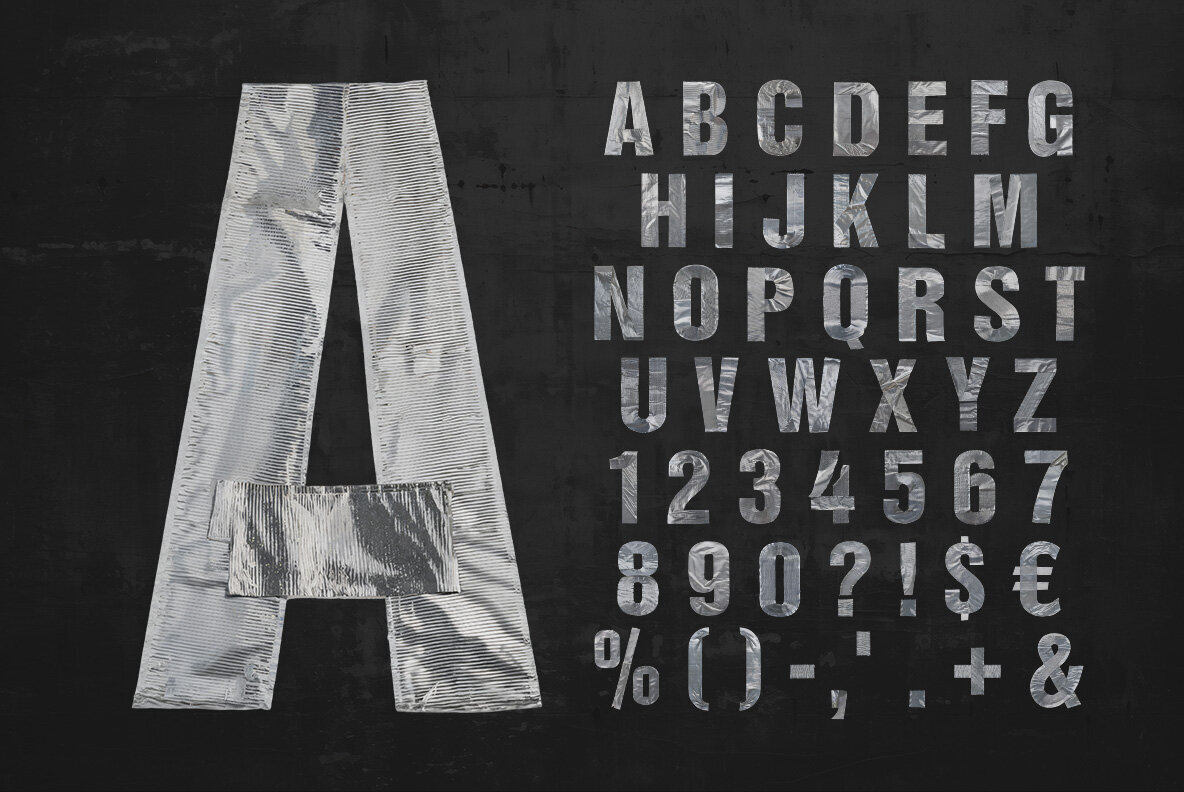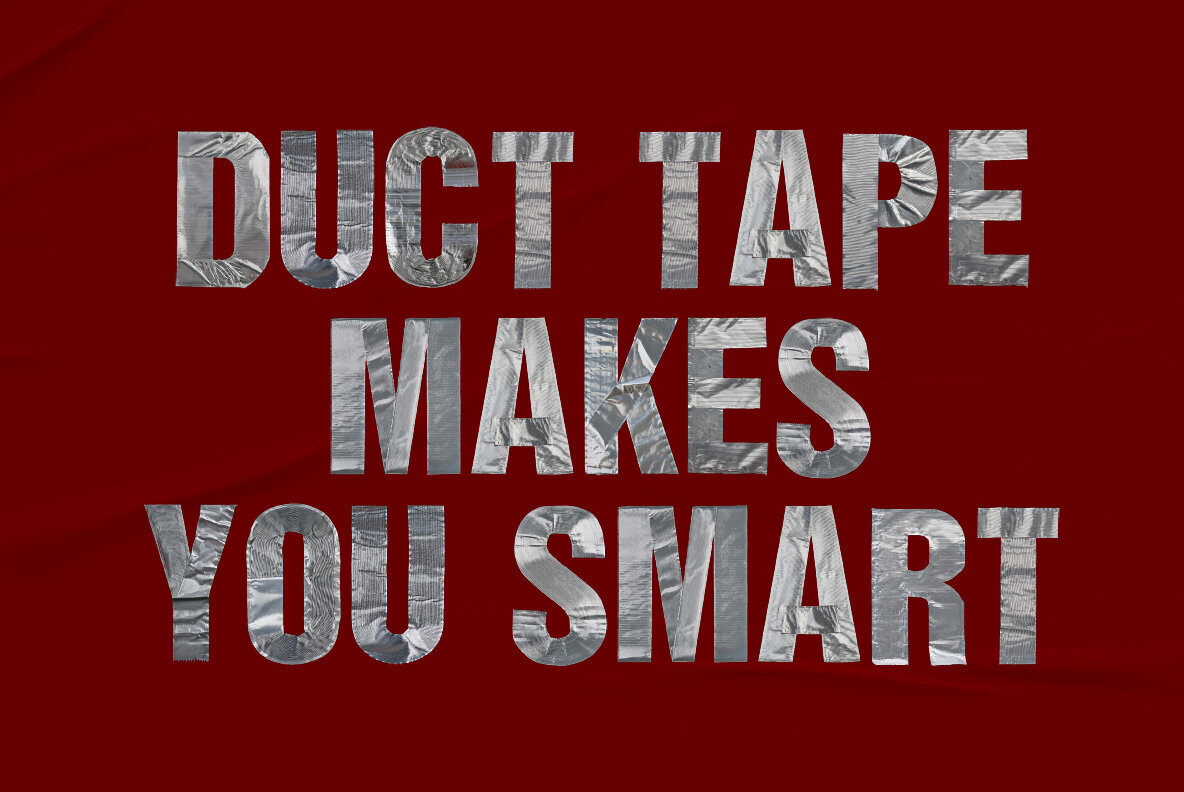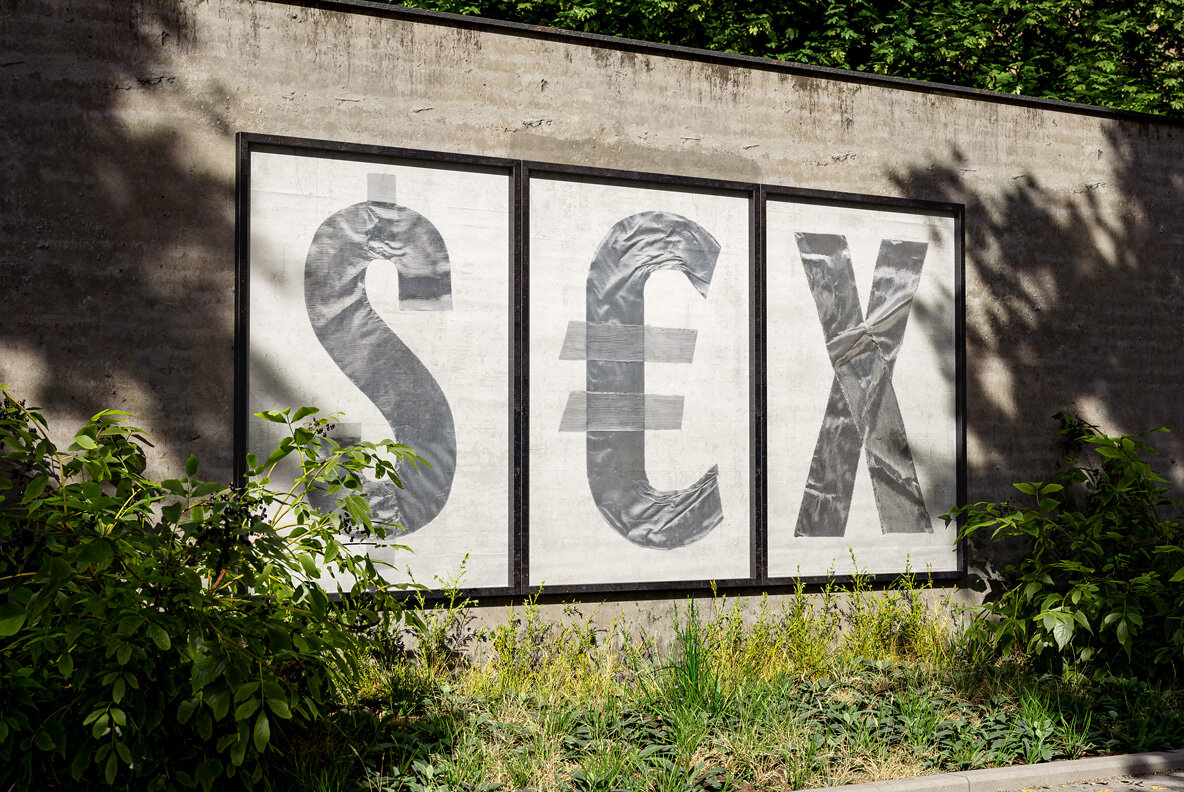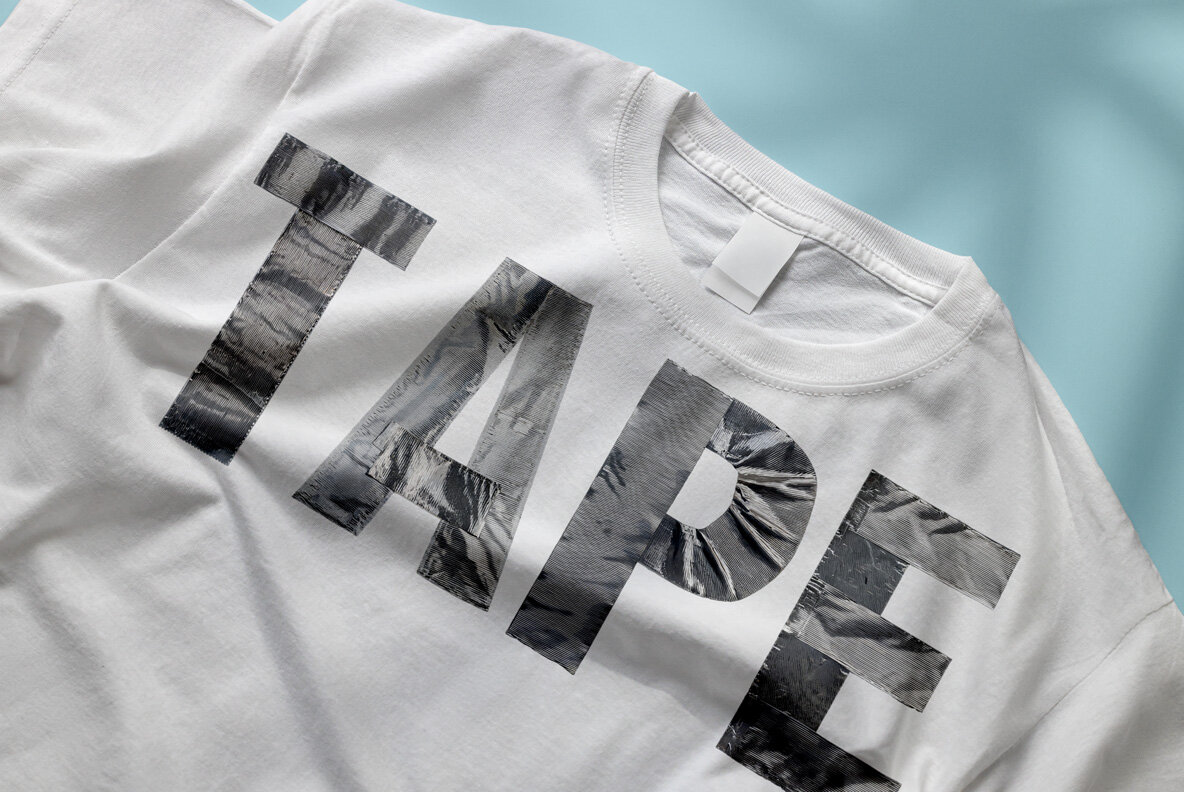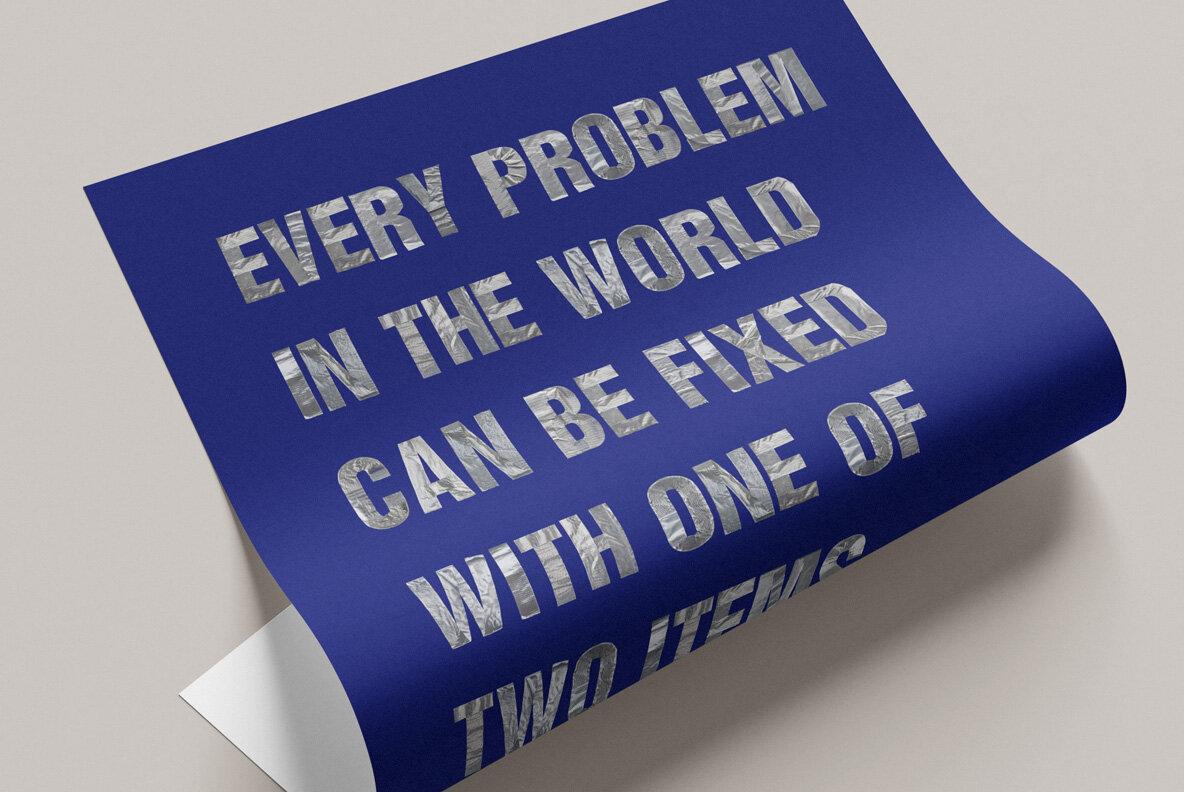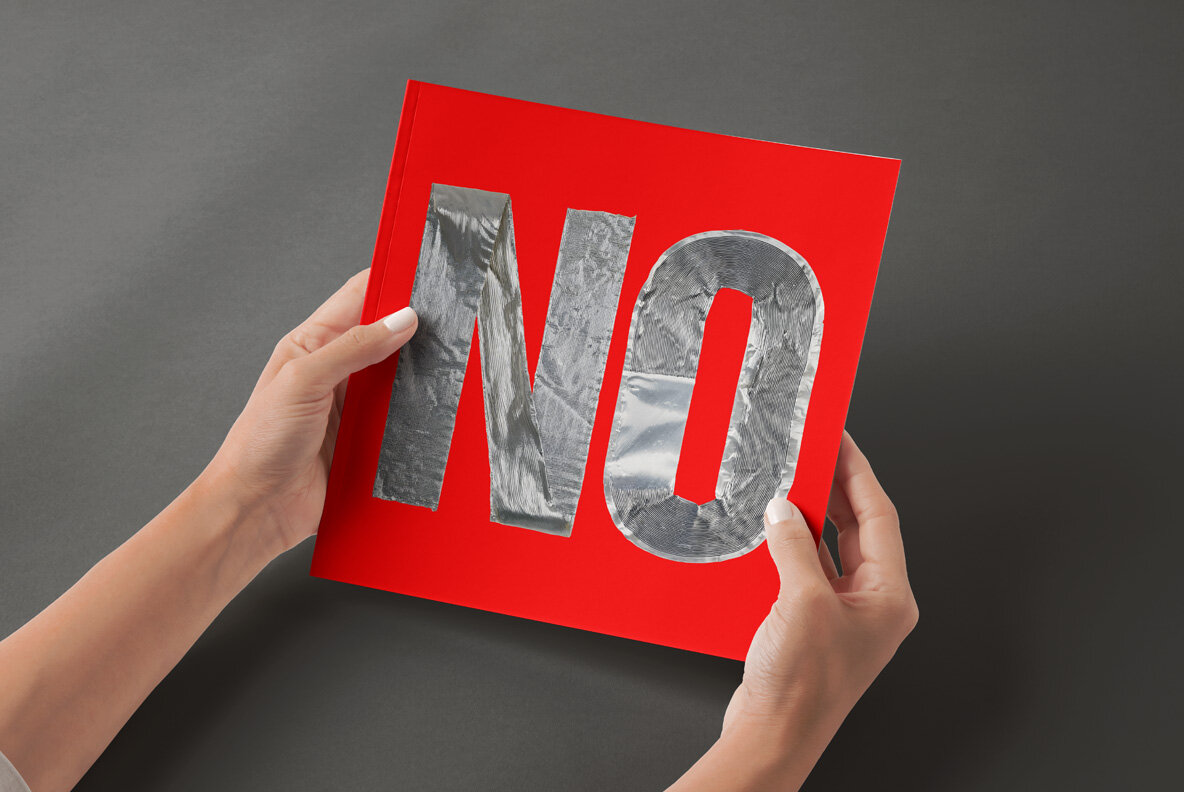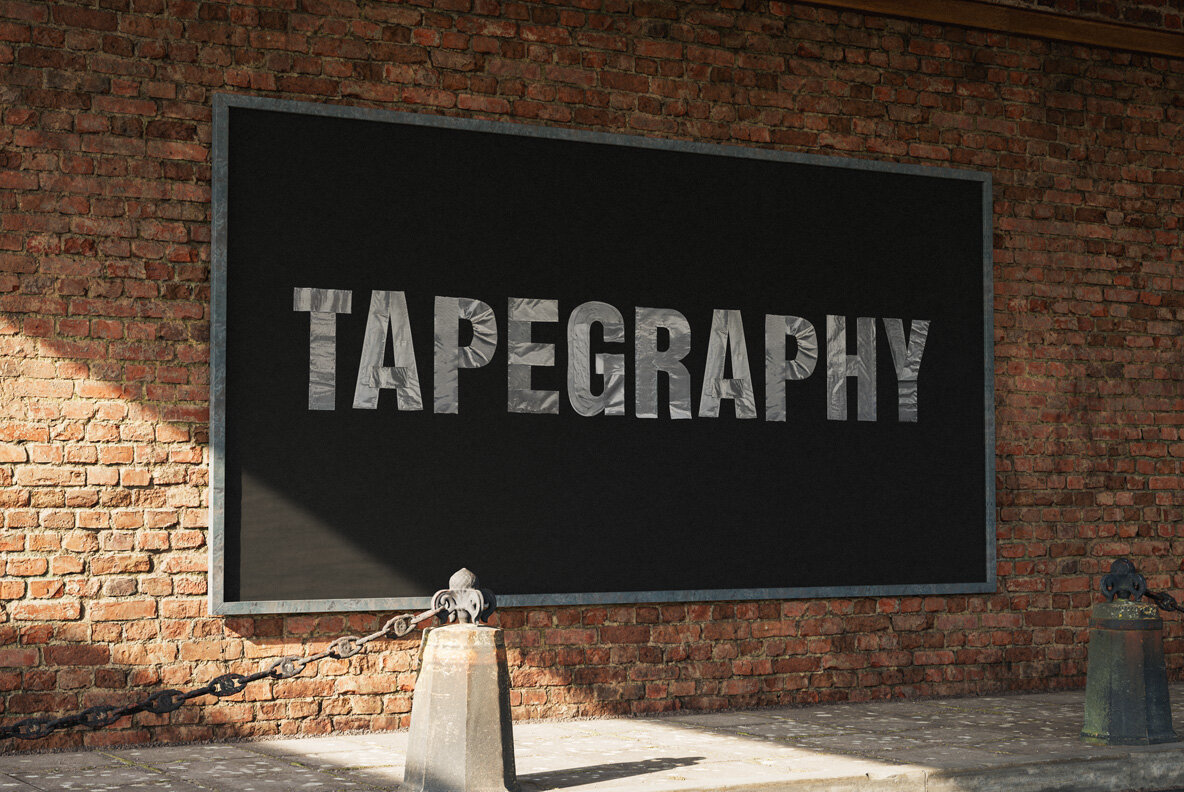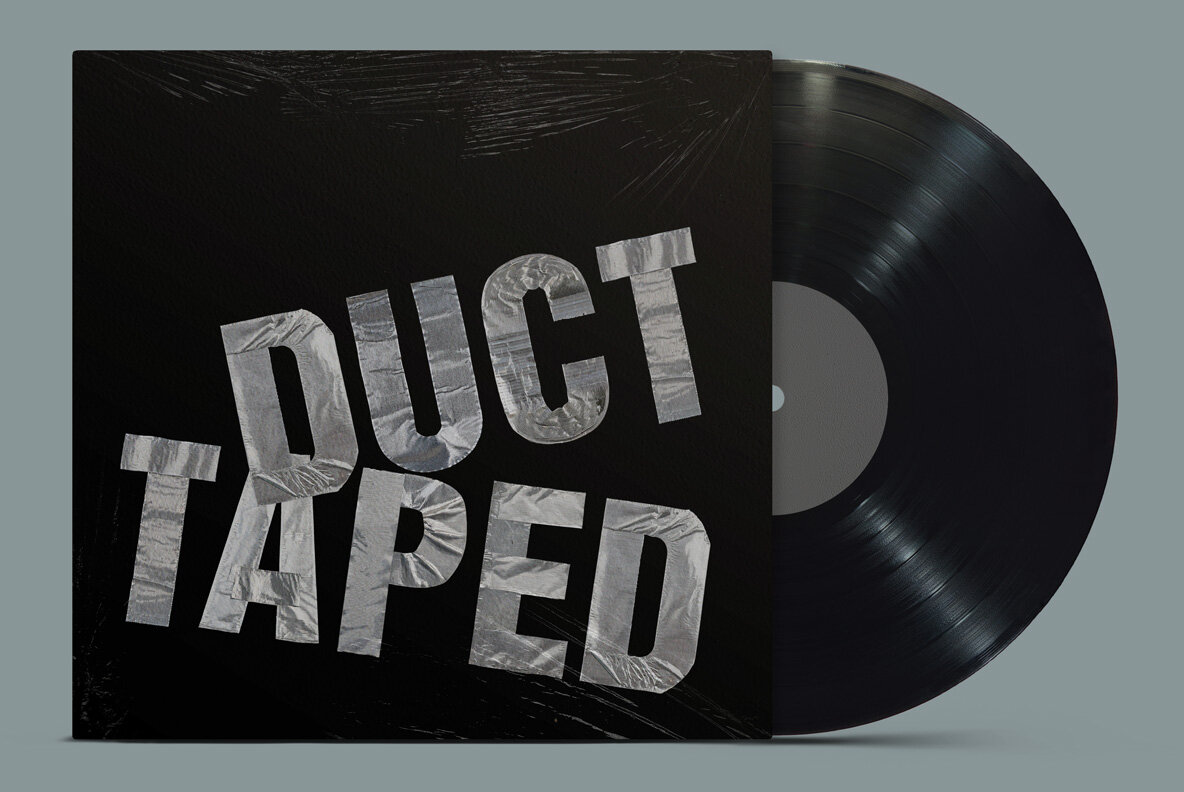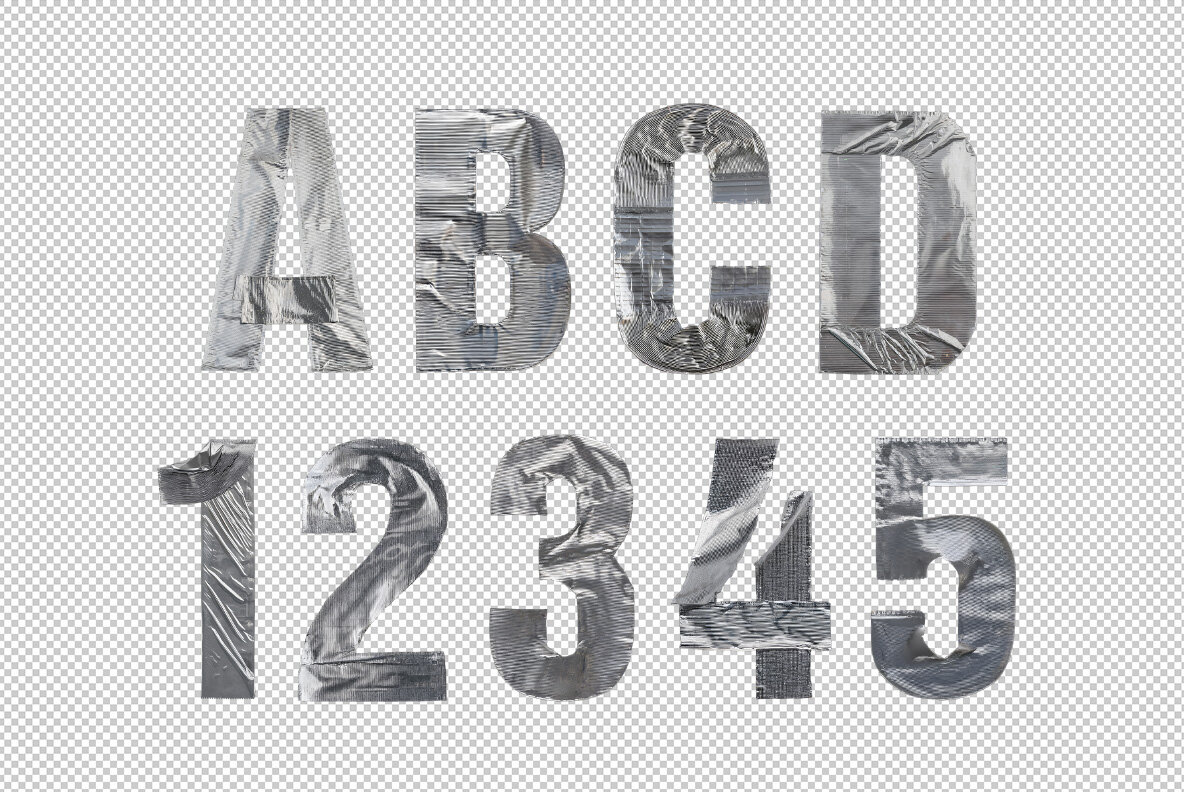
Introducing the Grey Duct Tape Font, a high-resolution OpenType color font designed for creative projects that demand a unique and industrial aesthetic. This font offers uppercase characters, numbers, and essential punctuation, all crafted to mimic the rugged texture of duct tape. Each glyph reaches approximately 800 pixels in height, showcasing the intricate detail and authenticity of this design. Compatible with software that supports color bitmap fonts like Photoshop and Illustrator, it takes advantage of the widespread adoption of OpenType-SVG, allowing vibrant expression across your projects.